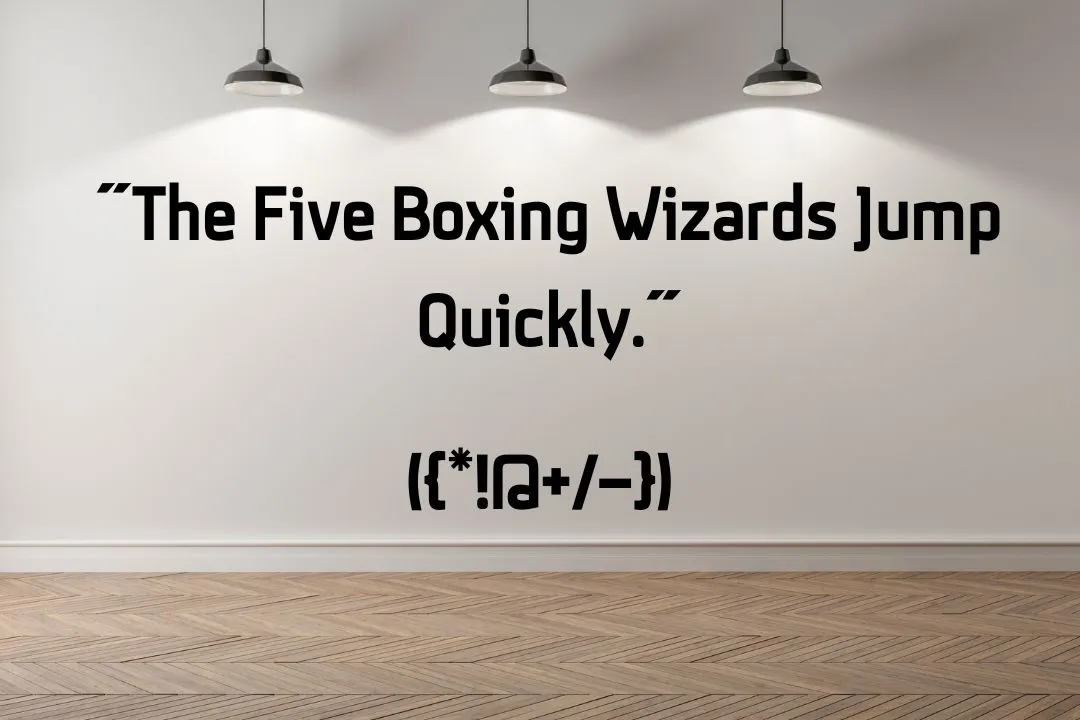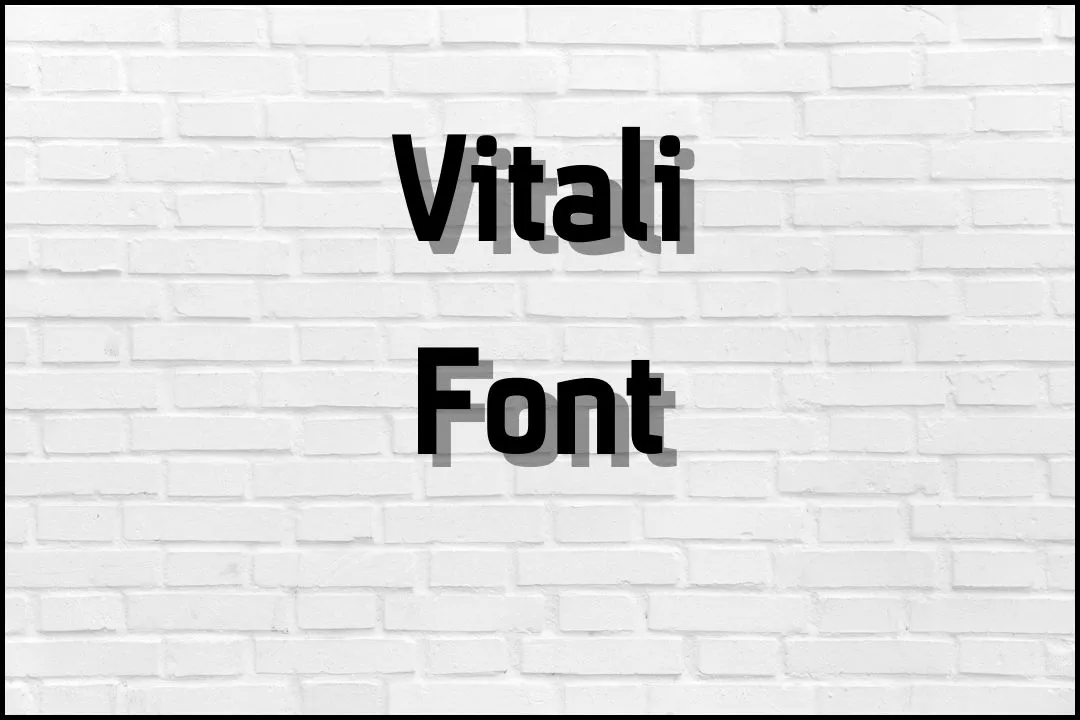
Vitali Font is a typeface designed by Polish graphic designer Mateusz Machalski. It was inspired by the work of Russian graphic artist Anatolii Mikhailovich Vitali and is characterized by its geometric, modernist style.
Pair this font with a complementary calibre font to create contrast and balance. The font includes both uppercase and lowercase letters, as well as numbers and punctuation marks. It features a bold, condensed design, with strong horizontal and vertical lines and rounded corners. The font is available in two weights, regular and bold.
This stunning font is a versatile typeface that can be used for a variety of design applications, including headlines, posters, logos, and branding materials. It is particularly well-suited for designs that require a modern, clean, and professional look.
Uses of Vitali Font
Vitali Font is a versatile typeface that can be used in a wide range of design applications. The bold, modernist style of this font makes it well-suited for use in graphic design projects, such as posters, flyers, and brochures. The clean, professional look of this font makes it a good choice for branding and identity materials, such as logos, business cards, and stationery.
The geometric, condensed design of this font makes it legible and easy to read at small sizes, making it a good choice for web design, such as headlines and subheadings. A similar font to this typeface is along sans font. You can be used for editorial design, such as magazine and newspaper layouts, due to its modernist style and versatility.
The bold and striking appearance of this font makes it a good choice for product packagings, such as labels and boxes, as it can help to draw attention to the product.
Vitali Font View
- Montserrat Font; It is a geometric sans-serif font that has a similar modernist style to Vitali Font. Both fonts feature clean lines and a condensed design, making them suitable for use in a wide range of design applications.
- Bebas Neue Font; This font is a sans-serif font that is similar to this one in terms of its bold, condensed design. Bebas Neue features wider letterforms and a more uniform stroke width than Vitali Font, but it can still be used in many of the same design applications.
- Nunito Font; It is a sans-serif font that shares some of the same geometric characteristics as it. Nunito has a more rounded and organic appearance than Vitali Font, but its overall simplicity and legibility make it a good choice for many design applications.
What is Vitali Font?
It was designed by Mateusz Machalski. It is characterized by its geometric, modernist style, and includes both uppercase and lowercase letters and numbers, and punctuation marks.
What inspired the design of Vitali Font?
This font was inspired by the work of Russian graphic artist Anatolii Mikhailovich Vitali.
What types of design applications is Vitali Font suitable for?
It is suitable for a wide range of design applications, including graphic design, branding and identity, web design, editorial design, and product packaging.
How many weights of Vitali Font are available?
This tremendous typeface is available in two weights: regular and bold.